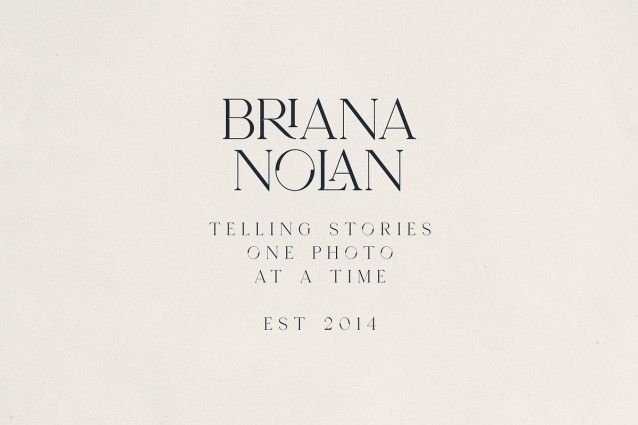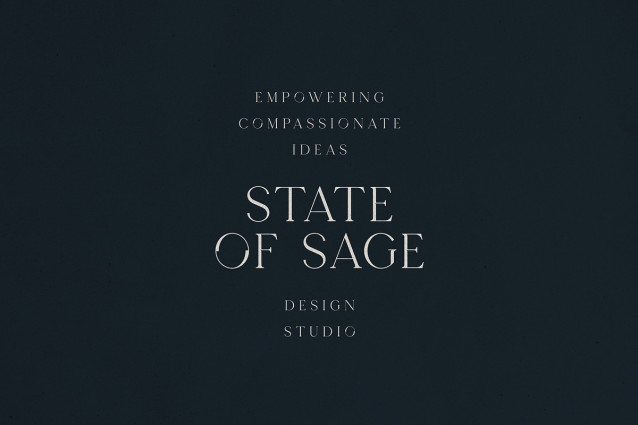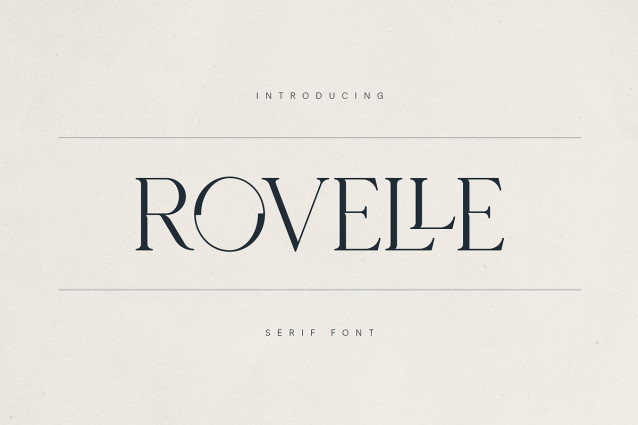
Rovelle Font
Rovelle Font is a refined, high-contrast serif font that blends classic sophistication with striking modern detail. Designed with sharp serifs, graceful curves, and an unmistakable character, Rovelle elevates every word it touches. Its unique design feature—a distinctive cutout in the “O” and similarly styled glyphs—adds a contemporary edge to its timeless form.
Ideal for branding, editorials, wedding stationery, luxury packaging, and curated digital experiences, Rovelle exudes confidence, clarity, and artistic flair. Its high legibility and carefully tuned spacing make it equally at home in headlines and longer text passages.